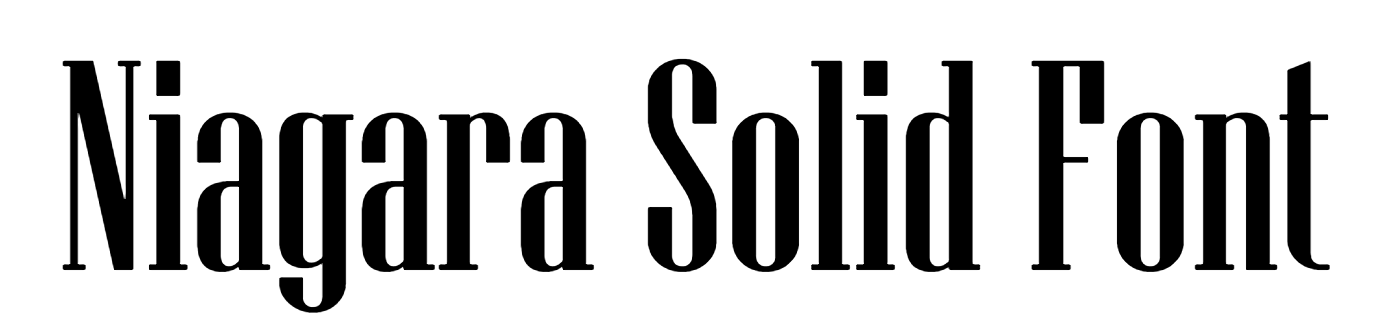
Niagara Solid
Niagara Solid is a serif font created by Tobias Frere-Jones and released through The Font Bureau, Inc (1994). Small strokes at the ends of its letters (the serifs) give it a classic, trustworthy look. It's a free download, and you can try it with your own text in the preview above first.
In the notes inside the font file, Tobias Frere-Jones describes it like this: “While not a revival in the strictest sense of the word, Niagara recalls the crisp, elegant geometry found in some of the best American styles from the thirties and forties.”
- Designer: Tobias Frere-Jones
- Publisher: The Font Bureau, Inc
- Width: Condensed
Niagara Solid covers the full alphabet in upper and lowercase, plus all ten numbers, so you can set names, dates and prices without switching fonts. Everyday marks like &, !, ? and @ are there too. Thanks to its accented letters, it also works for Spanish, French, German, Portuguese and Italian, not just English.
Think of Niagara Solid for book covers, magazine headlines and classic branding. Because the letters are narrow, long words fit in tight spaces like book spines, banners and video thumbnails. The file has no kerning data, so in logos and big titles check pairs like AV, To and Wa and tighten the spacing by hand. Serif fonts shine in headlines and printed text. For long paragraphs on phones, check that it still reads well at small sizes.